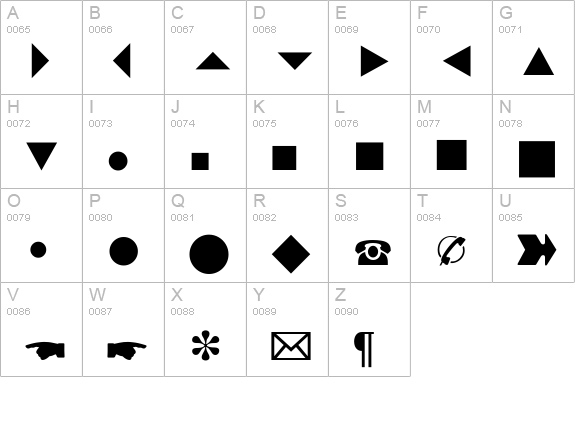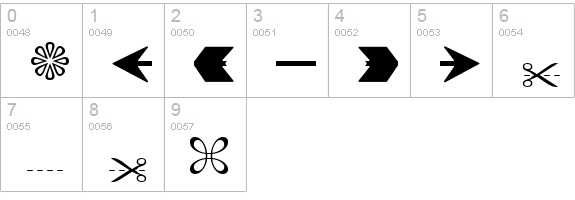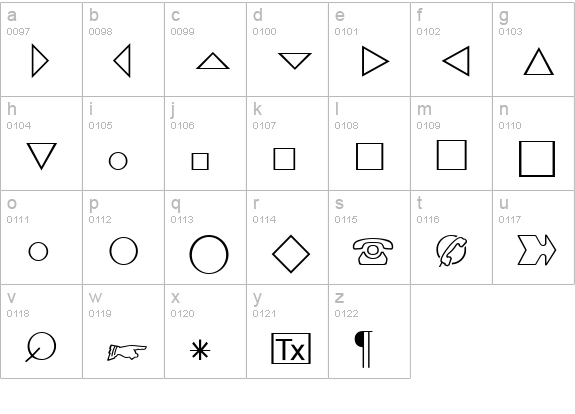
Abacus Three SSi Font Details
Abacus Three SSi font is a versatile and modern typeface that exudes sophistication and elegance. With its clean lines and balanced proportions, this font is perfect for a wide range of design projects, from branding to editorial design. The Abacus Three SSi font features a unique blend of classic and contemporary elements, making it suitable for both traditional and modern applications. What sets Abacus Three SSi font apart is its exceptional readability and timeless appeal. Whether used for headlines, body text, or graphic elements, this font ensures clear communication and visual impact. The sleek and stylish design of Abacus Three SSi font adds a touch of class to any project, making it a favorite among designers and creatives. The best part? Abacus Three SSi font is available for free download at FontsMarket.com. Simply visit the website to access this premium font at no cost. Don't miss out on the opportunity to enhance your design work with the sophisticated charm of Abacus Three SSi font - download it today and elevate your projects to the next level.